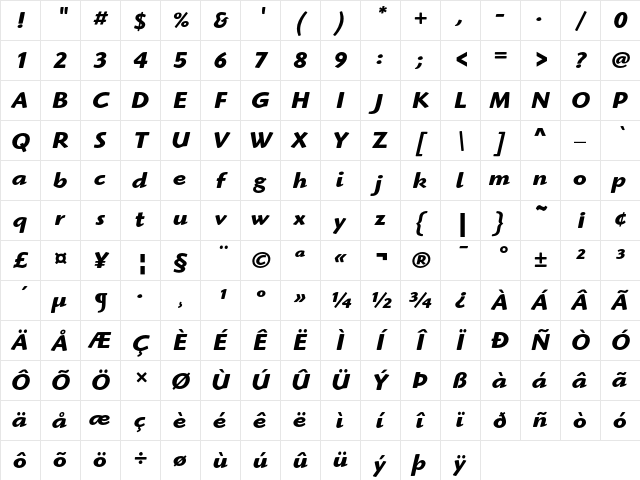
ITC Highlander Bold Italic
Complete ITC Highlander Bold Italic glyph index. Displaying only characters natively supported by ITC Highlander Bold Italic font.
Design Context for ITC Highlander
ITC Highlander is a composed and adaptable typeface that performs quietly and consistently across a wide range of design contexts. The slanted form adds forward momentum and visual energy. Its bold stroke weight gives it real presence on the page.
Pro Tip: Use ITC Highlander for emphasis, pull quotes, and subheadings where its slanted energy can add rhythm to the layout.